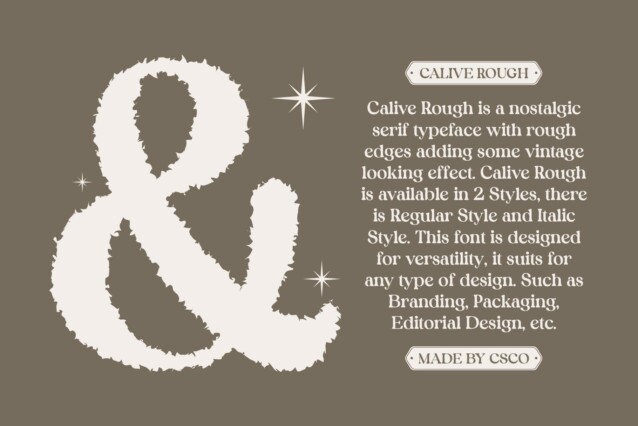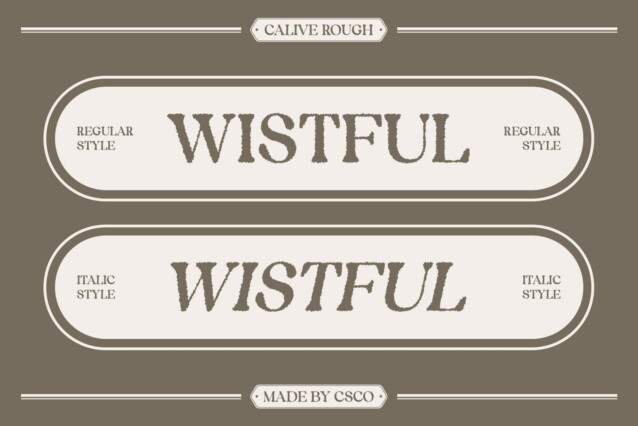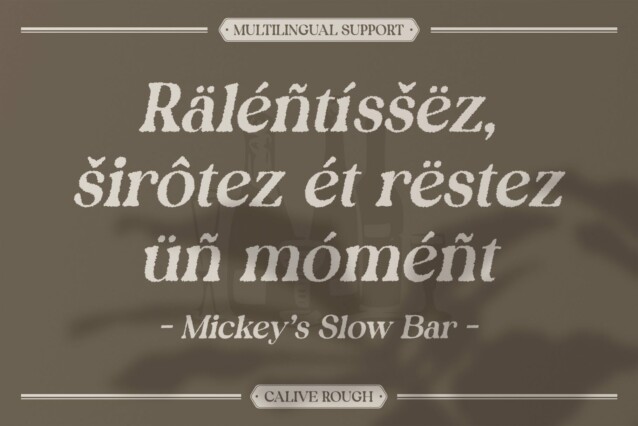
Calive Rough Font
Calive Rough Font is a classic serif font that beautifully marries traditional design elements with a distinctive retro vibe. Its bold lines and elegant ornamental details evoke a sense of nostalgia, reminiscent of vintage signage and classic print. Each letter embodies a timeless quality that appeals to both contemporary and traditional aesthetics, making it an excellent choice for a variety of creative projects.